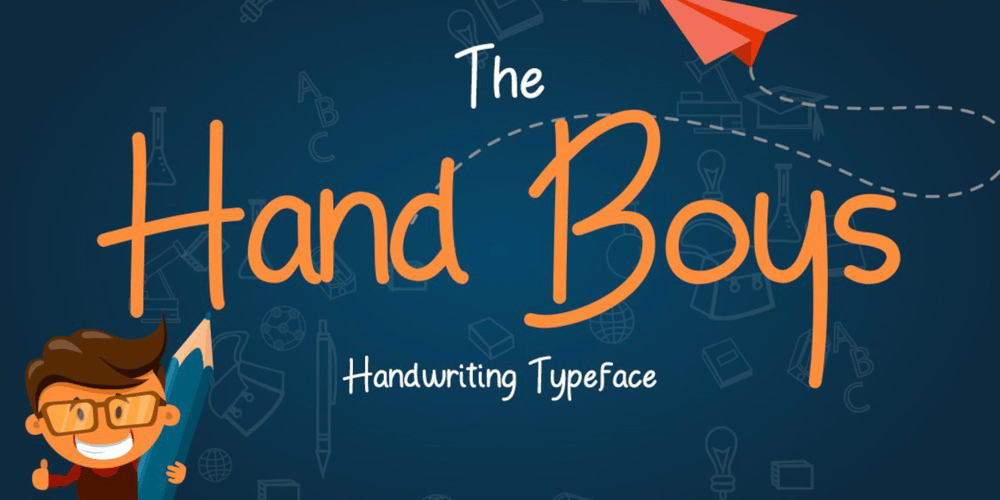
Hand Boys
Hand Boys font
Hand Boys Font Family was designed by Symon Adam Abdullah and published by Jorsecreative. Hand Boys contains 1 styles and family package options. Hand BoysIs a typeface signature font that is inspired from Boys handwriting style.Suitable for making Greeting Cards, invites, quotes, book content,T-shirt, child magazine contents, short story, poster label etc.